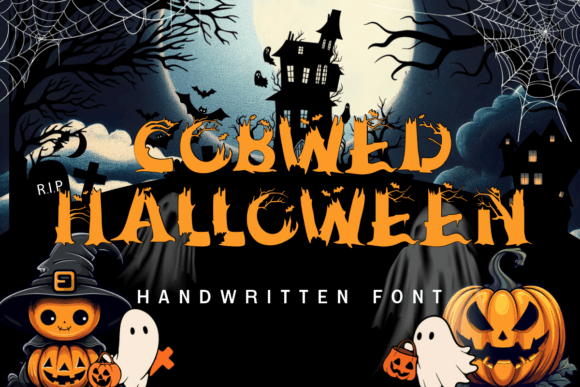
Celebrating the Spooky Season with a Twist
As the sun sets on a crisp autumn evening, the air is filled with the whispers of creativity. For designers, this is the perfect time to tap into the eerie and enchanting atmosphere of Halloween. It’s the moment when imagination knows no bounds, and the ordinary becomes extraordinary. For me, it’s the time when I start brainstorming ideas for spooky decorations, haunted houses, and of course, the perfect fonts to match the mood.
Enter the Cobwed Halloween Font, a masterpiece that brings a unique twist to the traditional font. Each letter is crafted to resemble a twisted, gnarled tree, evoking a sense of foreboding and mystery. The addition of bats adds an extra layer of eeriness, making it the perfect font for designers looking to create a hauntingly beautiful design. The Cobwed Halloween Font is a valuable addition to any designer’s toolkit, offering a fresh perspective on typography and a chance to create something truly unforgettable.
Cobwed Halloween Font Key Features
- Unique Characteristics: Cobwed Halloween Font features a unique, hand-drawn design with intricate details and ornaments, perfect for adding a spooky touch to Halloween-themed designs.
- Character Set: The font includes a wide range of characters, including uppercase and lowercase letters, numbers, punctuation marks, and special symbols, making it suitable for various design projects.
Cobwed Halloween Font Review
Overall, I’d say Cobwed Halloween Font is a fun, creative addition to any design project that needs a spooky touch. ✨ I love the playful, hand-drawn feel of this font, which makes it perfect for Halloween-themed designs, party invitations, or even spooky social media posts.
- Unique, creative style that’s perfect for Halloween-themed designs
- Hand-drawn feel adds a personal touch to any design project
- Works well for titles, headings, and short paragraphs of text
However, there are a few limitations to keep in mind. ⚠️ The font can be a bit tricky to read at smaller sizes, and the playful feel can sometimes come across as childish or amateurish if not used carefully. Additionally, the font’s unique style may not be suitable for all types of designs or audiences.
Overall, I think Cobwed Halloween Font is a great choice for designers who want to add a fun, spooky touch to their projects. Just be mindful of the limitations and use it in context to get the best results.
Use the Cobwed Halloween Font to create spooky and eerie designs for Halloween-themed projects, such as:
Invitations, posters, and flyers.
Decorations and signs for haunted houses and haunted attractions.
Graphics and illustrations for Halloween-themed social media posts and ads.